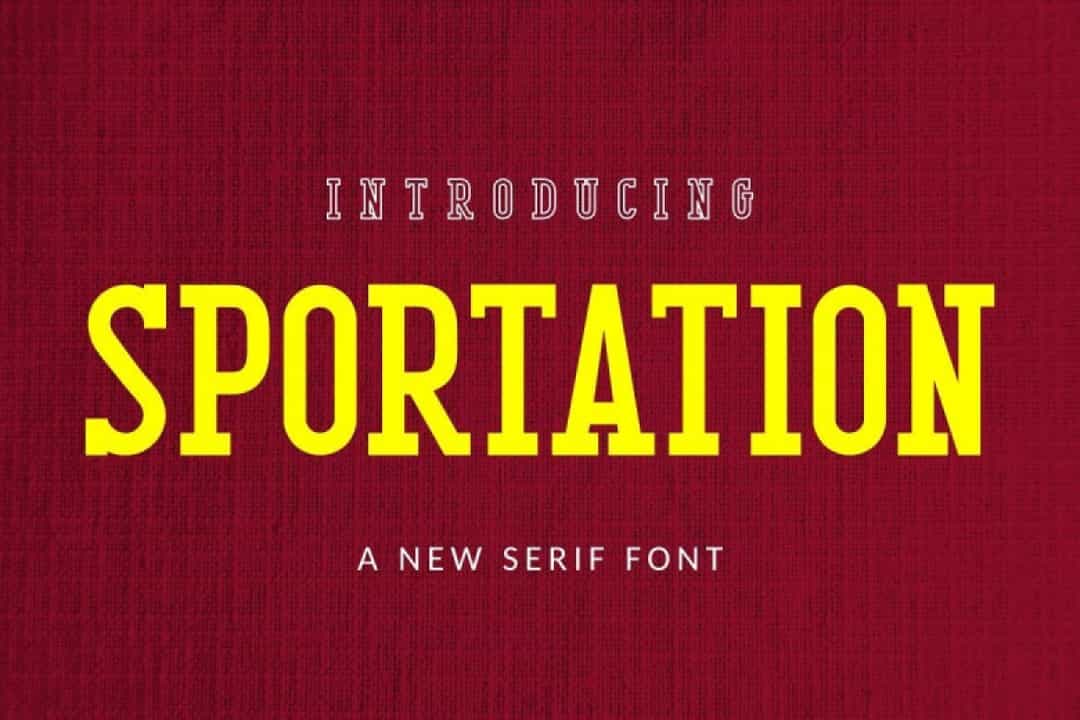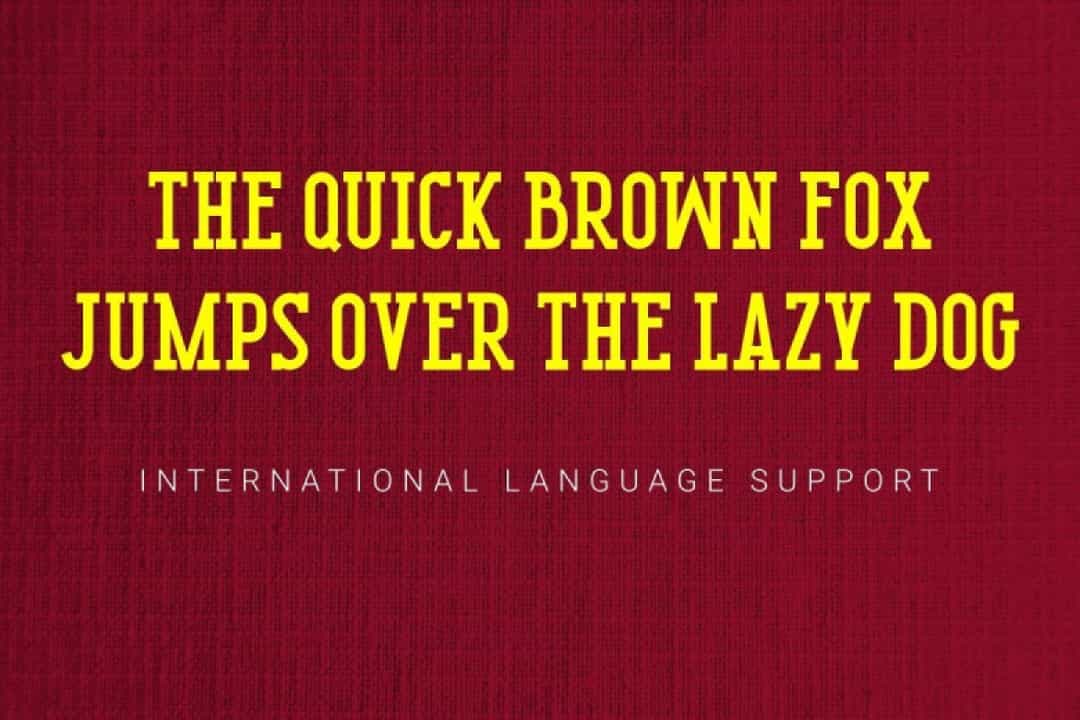
Sportation is an elegant yet athletic serif typeface perfect for creating eye-catching designs and concepts! With its elegant and well-balanced font design, Sportation makes an excellent addition to banners, event magazines, clothing designs and much more!